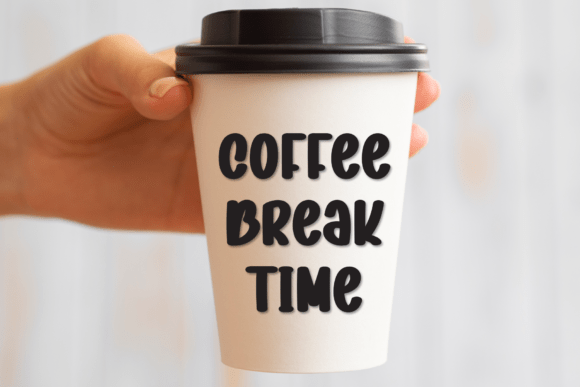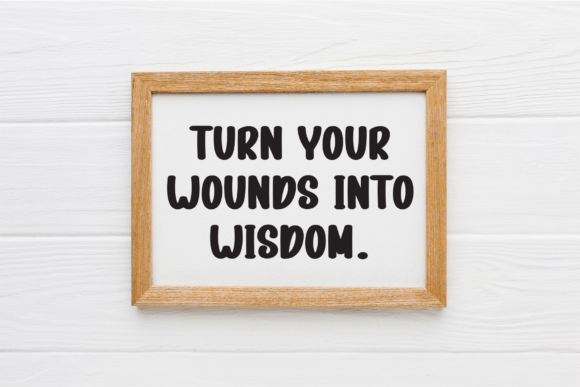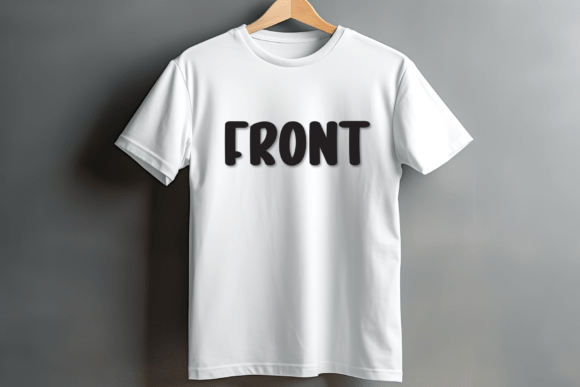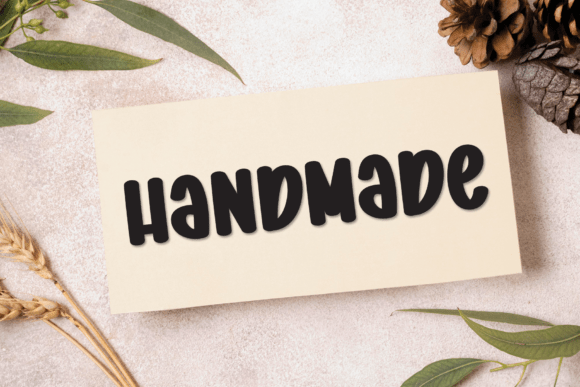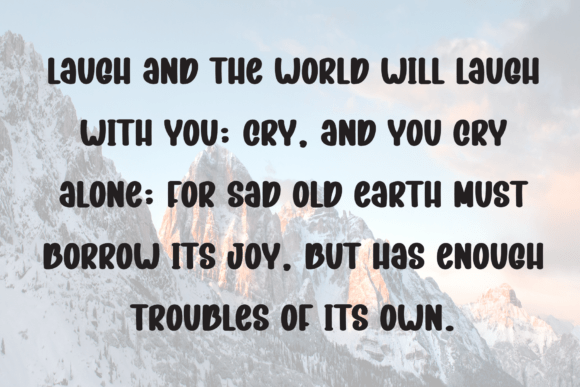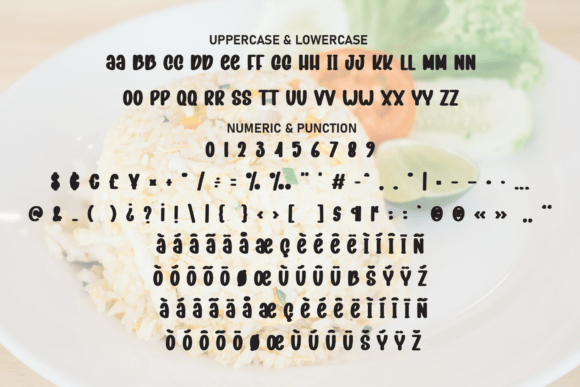
Introducing Fried Rice Font: Elevate Your Designs with a Taste of Creativity
Are you tired of using the same old fonts in your designs? Look no further! Our Fried Rice Font is here to revolutionize the way you approach typography. With its unique and stylish letters, this font is perfect for designers and crafters who want to add a touch of personality to their work. In this article, we’ll explore the features and benefits of Fried Rice Font, and how it can take your designs to the next level.
A Font for Every Creative Project
Whether you’re working on a wall display, wedding invitation, social media post, logo, advertisement, product packaging, or any other design project, Fried Rice Font is the perfect choice. Its latest style letters are carefully crafted to provide a fresh and modern look that will make your designs stand out. With Fried Rice Font, you can add a touch of elegance and sophistication to your work, or create a bold and playful statement – the possibilities are endless!
Unlock Endless Design Possibilities
With Fried Rice Font, you can unlock a world of creative possibilities. Use it to:
- Create stunning wall displays that grab attention.
- Design beautiful wedding invitations that set the tone for the big day.
- Elevate your social media posts with eye-catching typography.
- Develop unique logos and branding materials that reflect your personality.
- Design product packaging that stands out on store shelves.
- Add a touch of personality to your product designs, labels, and photography.
- Create beautiful watermarks that protect your work.
- Design stunning invitations, stationery, and other paper goods.
Why Choose Fried Rice Font?
So why choose Fried Rice Font over other fonts on the market? Here are just a few reasons:
- Unique and stylish letters that add a touch of personality to your designs.
- Perfect for a wide range of design projects, from wall displays to social media posts.
Get Ready to Experience the Extraordinary